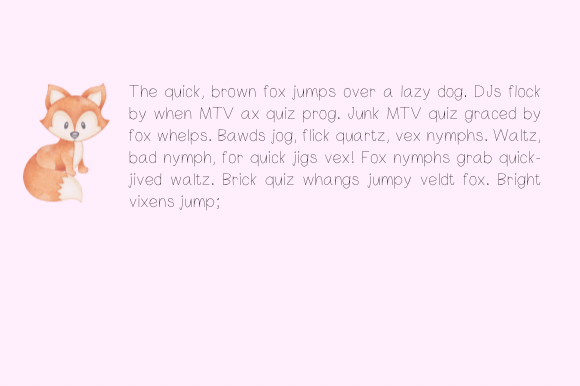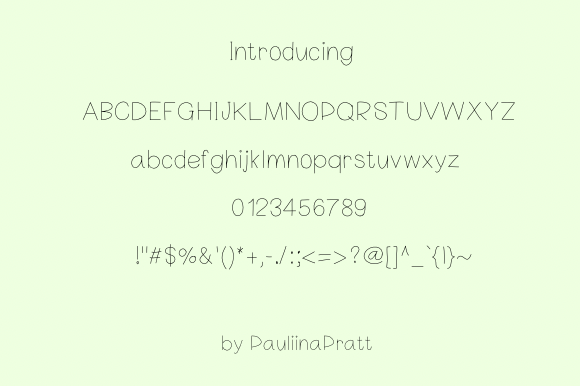
Introducing Good Morning Font: A Cute and Friendly Handwritten Delight
Are you a designer or crafter looking for a font that can add a touch of warmth and personality to your projects? Look no further than Good Morning Font, a beautiful and versatile handwritten font that’s perfect for a wide range of creative endeavors. In this article, we’ll take a closer look at what makes Good Morning Font so special and how you can use it to elevate your designs.
What is Good Morning Font?
Good Morning Font is a carefully crafted handwritten font that’s designed to be both cute and friendly. Its beautiful and well-balanced characters make it an excellent choice for anyone looking to add a personal touch to their projects. Whether you’re working on a DIY craft, a graphic design project, or a digital creation, Good Morning Font is sure to bring a smile to your face and a touch of warmth to your work.
Key Features of Good Morning Font
So, what makes Good Morning Font so special? Here are just a few of its key features:
- Cute and Friendly Design: Good Morning Font is designed to be both adorable and approachable. Its handwritten characters have a warm and inviting feel that’s perfect for creating a sense of connection with your audience.
- Well-Balanced Characters: Each character in Good Morning Font is carefully crafted to be well-balanced and visually appealing. This makes it easy to read and understand, even at smaller font sizes.
- Versatile: Good Morning Font is incredibly versatile and can be used for a wide range of projects, from DIY crafts and scrapbooking to graphic design and digital creations.
Uses for Good Morning Font
Good Morning Font is perfect for a variety of projects, including:
- DIY Crafts: Add a personal touch to your DIY crafts, such as handmade cards, gift tags, and decorations.
- Graphic Design: Use Good Morning Font in your graphic design projects, such as brochures, flyers, and posters.
- Digital Creations: Add a touch of warmth and personality to your digital creations, such as social media graphics, blog posts, and email newsletters.
- Scrapbooking: Good Morning Font is a great choice for scrapbooking projects, adding a personal and emotional touch to your memories.
Tips for Using Good Morning Font
Here are a few tips for getting the most out of Good Morning Font:
- Experiment with Font Sizes: Good Morning Font looks great at a variety of font sizes, so don’t be afraid to experiment to find the perfect size for your project.
- Pair with Other Fonts: Good Morning Font pairs well with other fonts, so try combining it with a bold font for headings or a clean font for body text.
- Use for Emphasis: Use Good Morning Font to add emphasis to important text, such as headings or key messages.
| Font Name | Good Morning Font |
| Author | PauliinaPrattDesign |
Good Morning Font is a beautiful and versatile handwritten font that’s perfect for designers and crafters looking to add a touch of warmth and personality to their projects. With its cute and friendly design, well-balanced characters, and versatility, Good Morning Font is sure to become a favorite in your font collection. So why not give it a try and see how it can elevate your designs?
- Is Good Morning Font suitable for body text?: While Good Morning Font is beautiful and easy to read, it may not be the best choice for long blocks of body text. Consider using a clean font for body text and Good Morning Font for headings or emphasis.